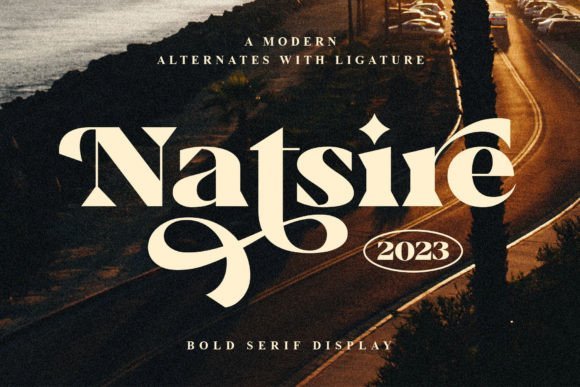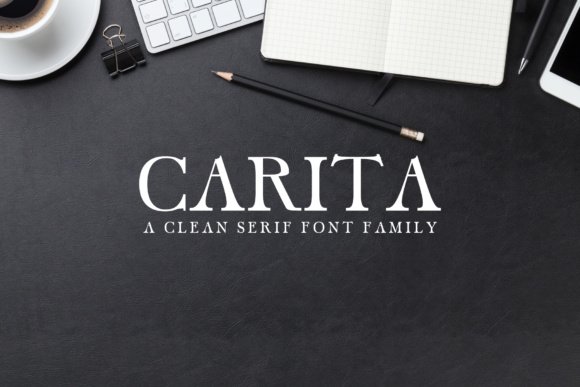
21 Gorgeous Modern Fashion Fonts for Lookbook Projects 2026
Selecting the right Modern Fashion Fonts defines how your audience perceives your style and brand identity. This collection highlights typefaces that balance high-end aesthetics with readability for high-end print and digital media. High-contrast serifs and minimal sans-serifs offer the visual weight needed for bold headings in 2026.
Type choice dictates the mood of a collection before a single word is read. These selections provide clarity and sophistication for lookbooks and digital storefronts alike. Each option brings a specific character that complements high-quality photography and clean white space.
1. Modern Fashion Sans Serif Font
Modern Fashion Sans Serif Font – The Art Deco spirit lives on through this typeface, which pairs thick and thin strokes with a distinct double-line body. It brings a retro-chic look to high-end logos or magazine layouts without feeling dated. The weight distribution creates a rhythm that catches the eye immediately and gives your text a custom, handcrafted feel.
Designers seeking Modern Fashion Fonts will appreciate the 100 ligatures and alternates that allow for custom letter pairings. This font supports multiple languages and includes full punctuation for professional use. It works well for brands that want a mix of mid-century charm and current-day crispness.
2. Alvora Serif Font
Alvora Serif Font – High-contrast strokes define this typeface, giving every character a polished, editorial weight. The curved details feel expensive and high-end, making it a natural fit for perfume labels or luxury apparel tags. Its slanted italic style provides a sharp counterpoint to the upright regular version to help emphasize specific brand messages.
With over 200 glyphs available, the font handles complex layouts with ease while maintaining perfect legibility. It pushes a high-fashion aesthetic that suits premium wedding invites or jewelry catalogs. The balanced proportions ensure that your text feels intentional and grounded on the page or screen.
3. Headline Serif Bundle Font Set
Headline Serif Bundle Font Set – This set gathers twelve distinct typefaces meant for large-scale display and editorial titles. Each option provides sharp serifs and exaggerated flourishes that look sharp on glossy magazine covers or digital lookbooks. It solves the problem of finding cohesive yet varied styles for a single large-scale campaign.
Styles like Sherlock and Wen Romun offer unique personalities ranging from sharp and edgy to soft and curvy. PUA encoding means every decorative alternate is accessible for your creative projects without needing special software. These selections provide plenty of variety for anyone building a high-end brand kit from scratch.
4. Butter Love Font
Butter Love Font – Butter Love brings a relaxed, handwritten charm to your creative canvas through its thin, elongated lines. Each character flows with a casual grace that feels both personal and professional without trying too hard. The legible curves provide a light aesthetic that suits minimal layouts requiring a gentle, human touch.
Designers often select this script for lifestyle content and chic product labels. It works beautifully alongside other Modern Fashion Fonts when creating signature-style watermarks or elegant stationery sets. This typeface ensures your message remains clear while looking effortlessly stylish on any digital or print surface.
5. Ropang Serif Font
Ropang Serif Font – Ropang stands out with sharp terminals and dramatic, high-contrast strokes that evoke a sense of high-end editorial prestige. The sweeping swashes add a rhythmic quality to the letters, making every word look like a custom-made logo. It balances the weight of traditional serifs with a sleek, contemporary silhouette for visual impact.
This typeface serves as a strong foundation for independent fashion houses and upscale jewelry branding. Its sophisticated structure fits perfectly on social media headers and luxury magazine spreads. Choosing this font allows a brand to project authority and grace without relying on overused decorative elements.
6. Torkias Jole Serif Font
Torkias Jole Serif Font – Torkias Jole commands attention through towering vertical stems and intricate, flowing swashes that mimic the art of fine hand-lettering. The dramatic contrast between thick and thin lines creates a sense of luxury rooted in old-world craftsmanship. It blends a tattoo-inspired flair with the structure of a classic display serif for a bold, artistic result.
Quality typography acts as the silent partner in great design. Stick to options that provide multiple weights and clear letterforms to maintain consistency across different platforms. Your choice of typeface remains one of the most effective ways to establish a distinct and memorable visual voice.